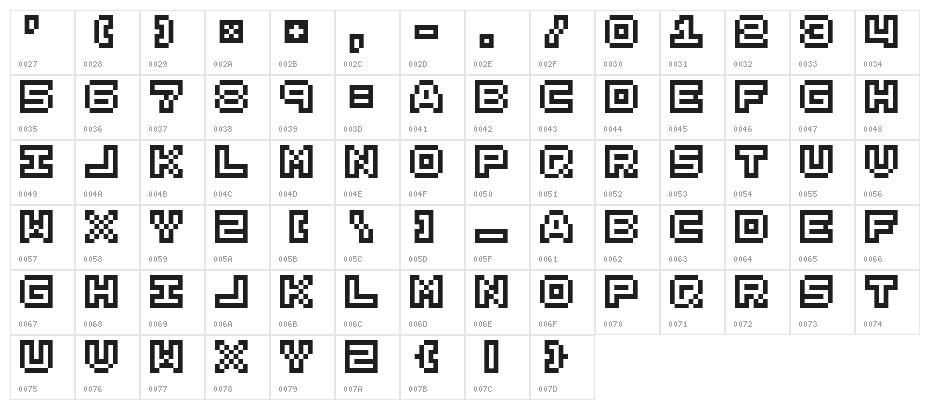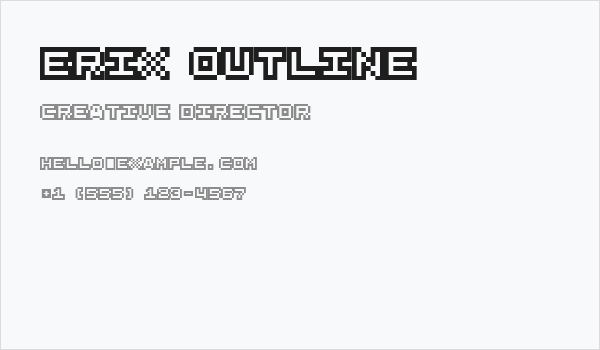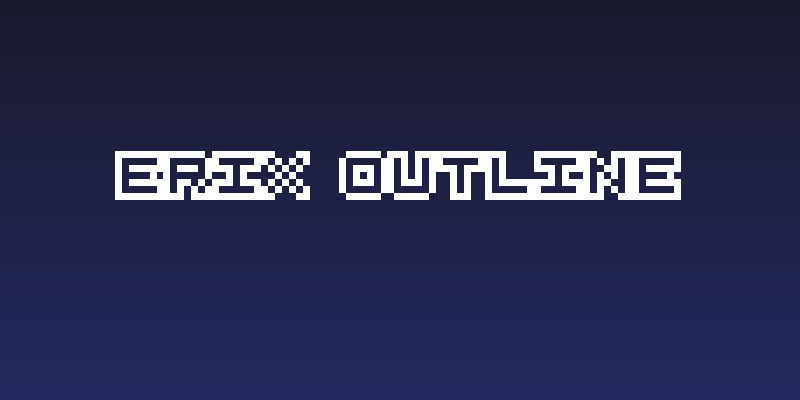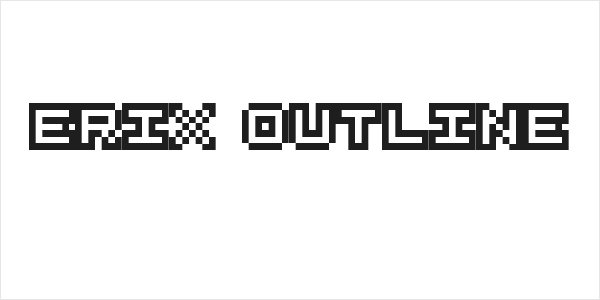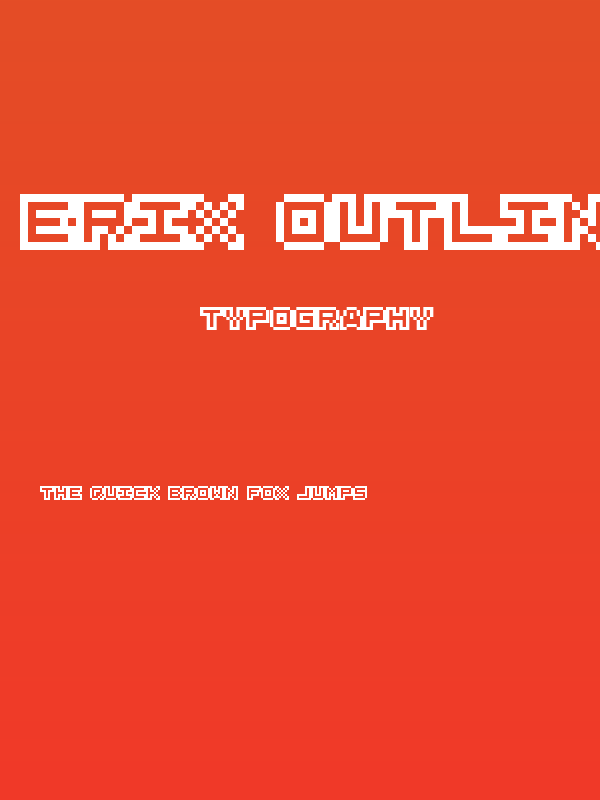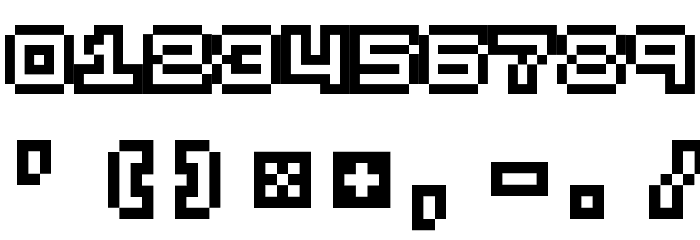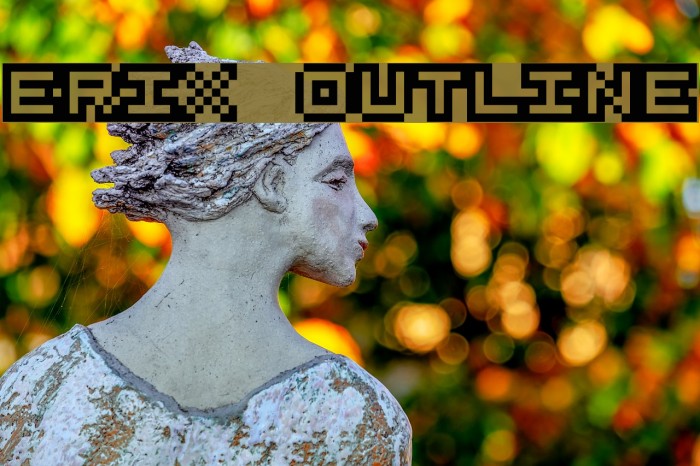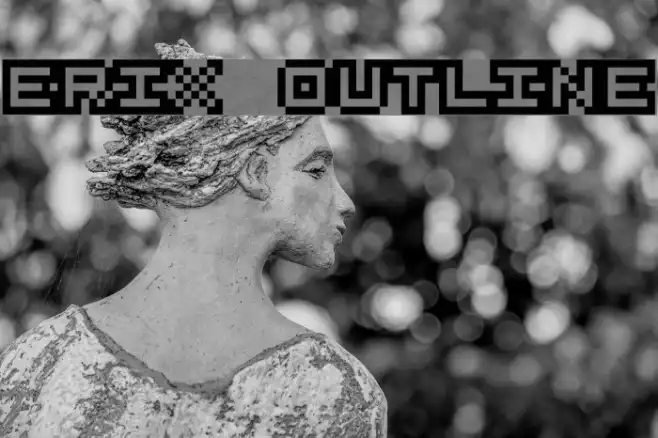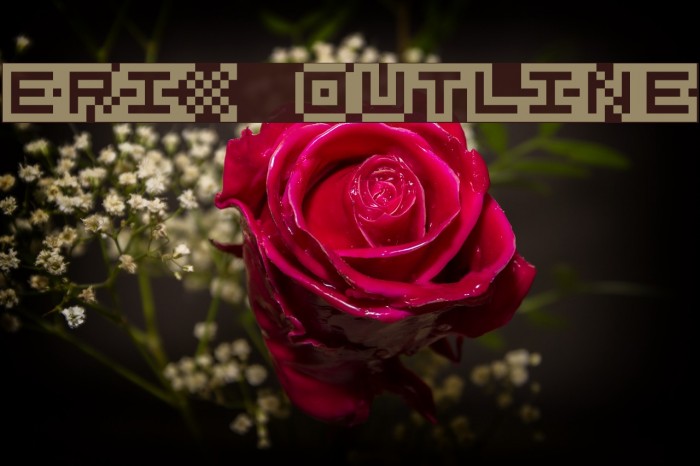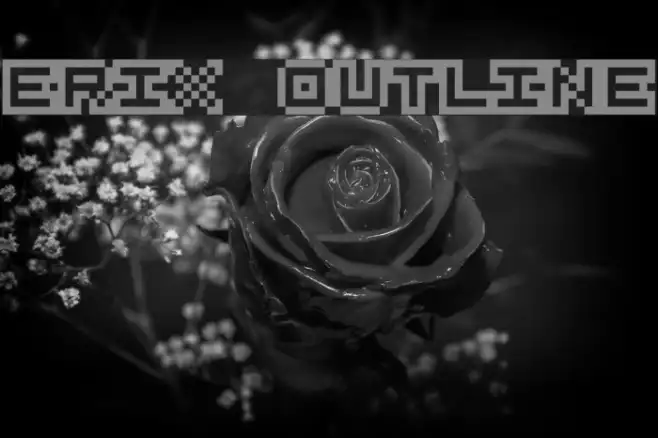
Erix Outline Font
Erix Outline Description
This font features a bold, pixelated outline style reminiscent of retro digital displays and early video game graphics. Each character is constructed with a blocky, geometric design, giving it a distinct, tech-inspired aesthetic. The uppercase and lowercase letters maintain a consistent height, contributing to a uniform appearance. The numbers and special characters follow the same pixelated theme, ensuring cohesion across all elements. The font's outline nature adds a layer of depth, making it suitable for eye-catching designs.
| Proposed Projects | Ideal for video game graphics, tech-themed posters, digital art projects, and retro-style branding. |